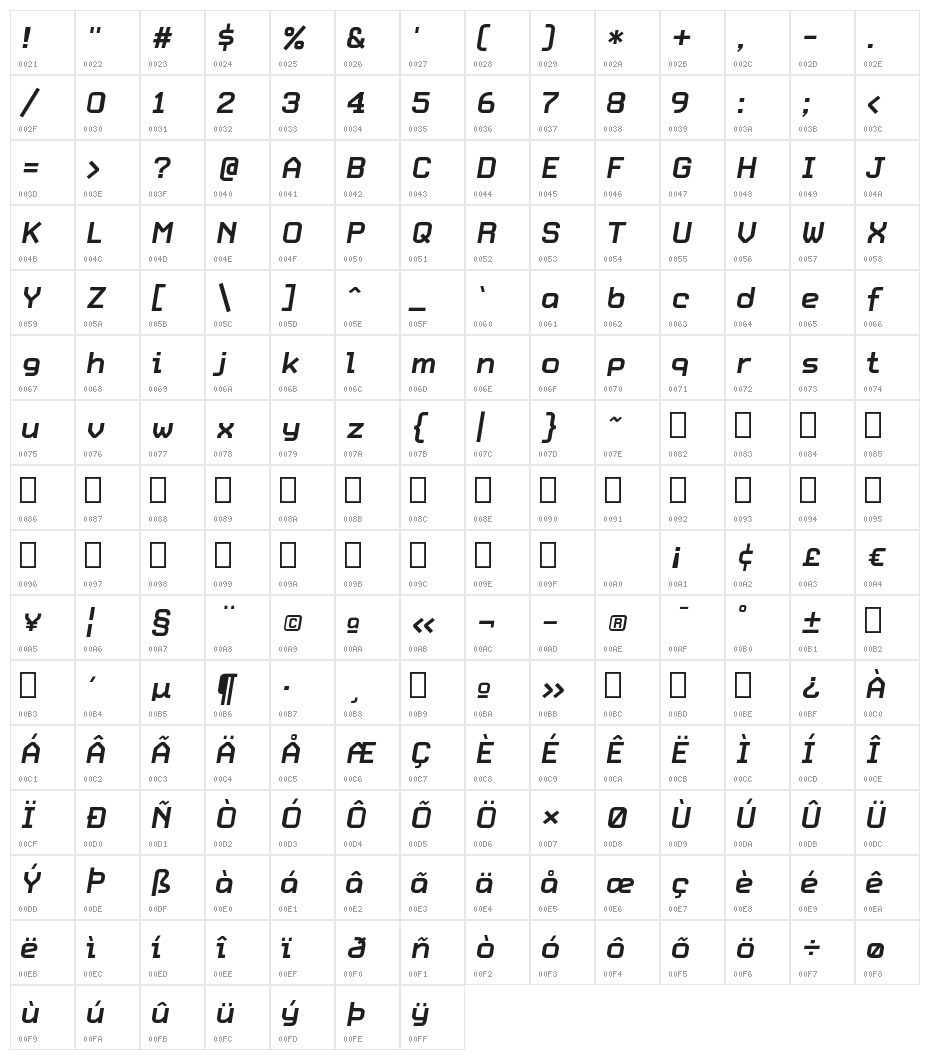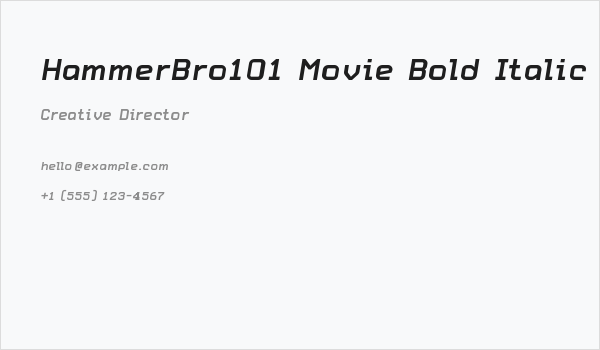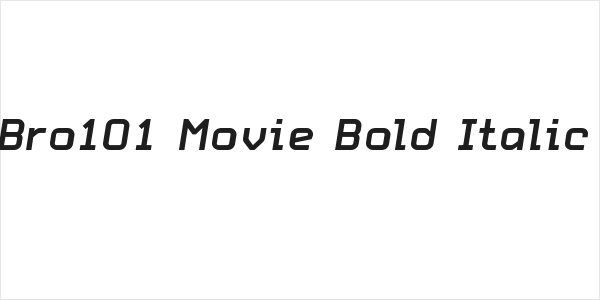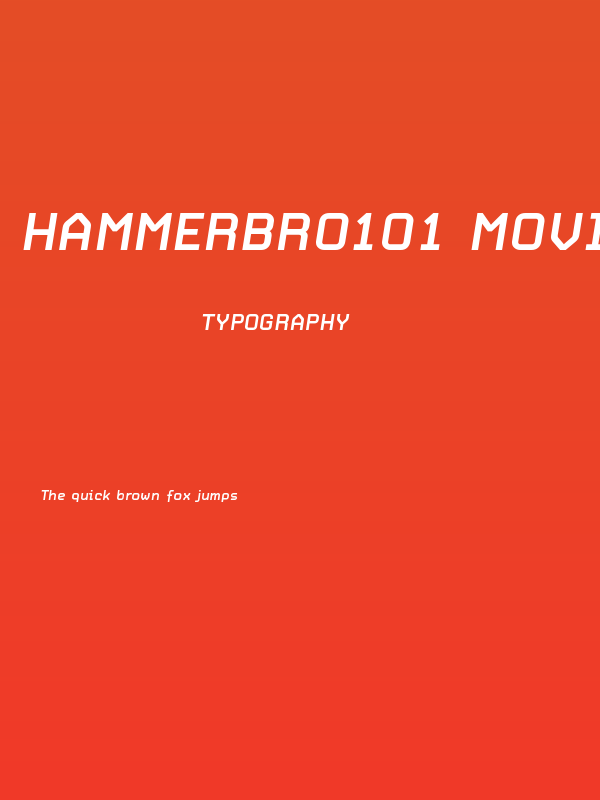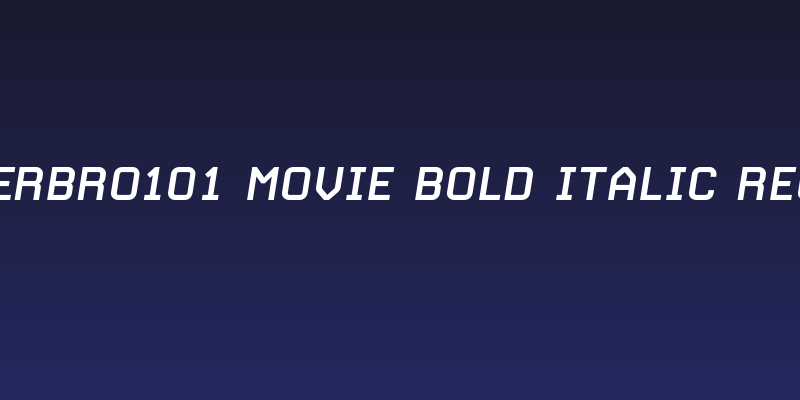
HammerBro101 Movie Bold Italic Regular Font
HammerBro101 Movie Bold Italic Regular Description
This font features a bold and italic style with a modern, geometric appearance. The characters are slightly slanted, adding a dynamic and forward-moving feel. The uppercase letters are strong and assertive, while the lowercase letters maintain a consistent flow. The numerals are clear and easily distinguishable, making them suitable for various applications. The special characters are well-integrated, ensuring versatility in design. Overall, the font's boldness and italic slant make it ideal for projects that require a contemporary and energetic look.
| Proposed Projects | Ideal for movie posters, branding, sports team logos, and dynamic web design. |